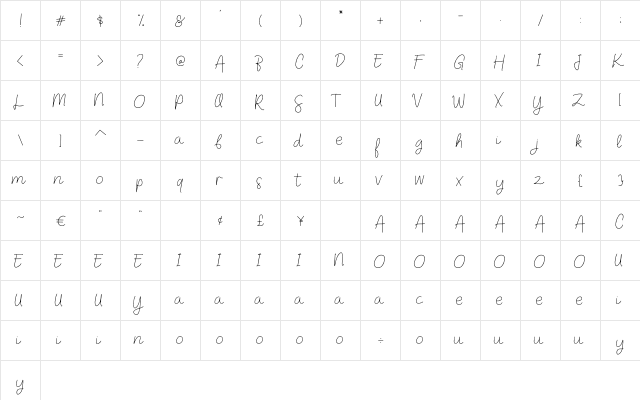
Dear Audrey Script
| Style | Script |
| Designer | Afandi & Syifa (Peterdraw) |
Design Context for Dear Audrey Typeface
Dear Audrey brings a calligraphic fluidity to the page — its connecting strokes and expressive curves give it an unmistakably human quality.
Font Pairing: Combine Dear Audrey with a simple geometric sans for maximum contrast — the tension between flowing curves and clean structure is a classic typographic pairing.
Pro Tip: Pair Dear Audrey with a clean sans-serif for supporting text. The contrast between fluid script and geometric structure creates an elegant typographic hierarchy.